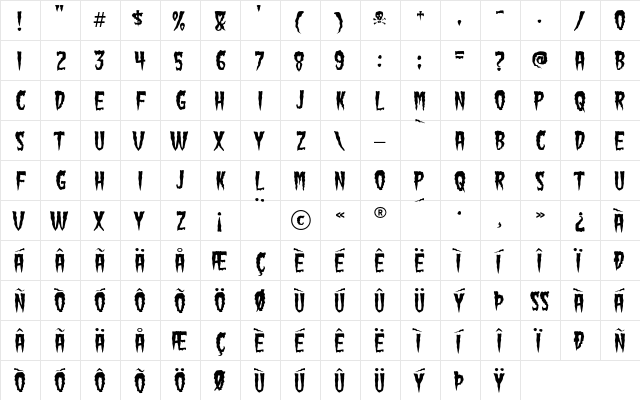
Green Fuz Regular
Design Context for Green Fuz Typeface
Green Fuz is a composed and adaptable typeface that performs quietly and consistently across a wide range of design contexts.